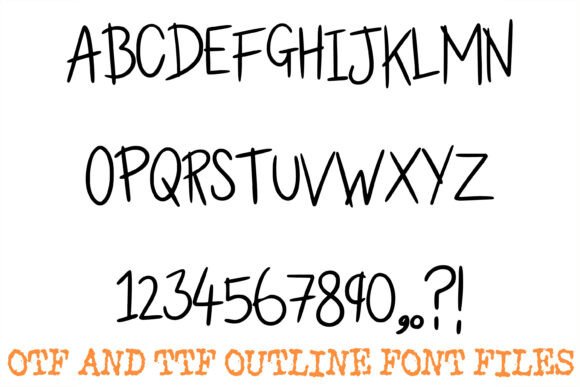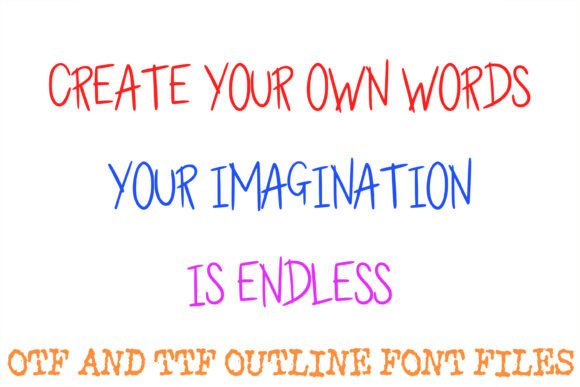
Introducing the Everyday Handwriting Font: Elevate Your Designs with a Personal Touch
In the world of digital design, finding the perfect font that adds a human touch to your creative projects can be a daunting task. However, with the Everyday Handwriting Font, you can now infuse your designs with a warm, approachable feel that resonates with your audience. This versatile and charming hand-drawn typeface is specifically designed to bring a sense of personality and authenticity to your work, making it an ideal choice for designers and crafters looking to add a personal touch to their projects.
The Characteristics of Everyday Handwriting Font
The Everyday Handwriting Font boasts tall, slender character silhouettes that capture the effortless charm of natural penmanship. Its clean and minimalist style ensures high legibility, making it suitable for both digital and physical applications. The font’s authentic hand-drawn feel is evident in every stroke, which mimics the organic flow of a real pen. This results in a non-digital look that adds personality and warmth to your text, setting it apart from more conventional fonts.
Why Your Designs Will Stand Out with Everyday Handwriting Font
So, what makes the Everyday Handwriting Font an excellent choice for your designs? Here are a few reasons why it stands out:
- Tall & Skinny Silhouette: The slender, vertical letterforms provide a modern, space-saving aesthetic that works beautifully for headers and captions. This feature is particularly useful for designers who want to create a visually appealing hierarchy of text without compromising on style.
- Authentic Hand-Drawn Feel: The font’s hand-drawn nature gives it a unique, organic feel that adds a touch of personality to your text. This makes it perfect for designers who want to create a more personal connection with their audience.
- Clean & Minimalist Style: The Everyday Handwriting Font’s simple, understated design makes it easy to pair with bold display fonts or use as a standalone typeface for body text. This versatility ensures that it can be seamlessly integrated into a wide range of design projects.
Ideal Applications for Everyday Handwriting Font
The Everyday Handwriting Font is an excellent choice for various design projects, including:
- Digital Planners: Add a personal touch to your digital planners with a font that feels approachable and human.
- Minimalist Branding: Create a unique brand identity with a font that exudes simplicity and elegance.
- Personalized Stationery: Make your stationery designs more special with a hand-drawn font that adds a touch of warmth.
- Casual Social Media Graphics: Elevate your social media graphics with a font that feels friendly and approachable.
- Capital and Lowercase Letters: The font includes both uppercase and lowercase letters, giving you flexibility and creative freedom.
The Everyday Handwriting Font is a versatile and charming typeface that can add a personal touch to your designs. Its unique blend of elegance and approachability makes it an excellent choice for designers and crafters looking to create visually appealing and engaging projects. With its tall, slender character silhouettes, authentic hand-drawn feel, and clean minimalist style, this font is sure to elevate your designs and help you connect with your audience on a more personal level.